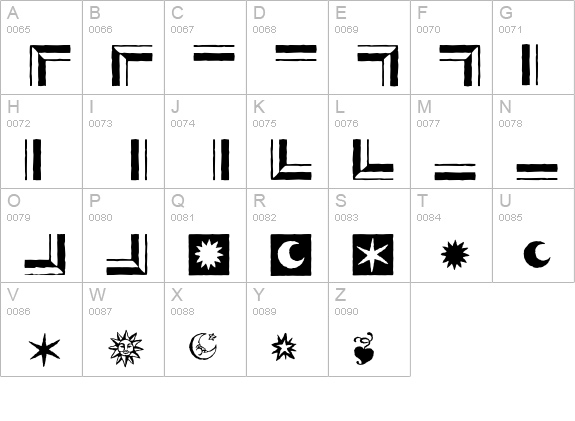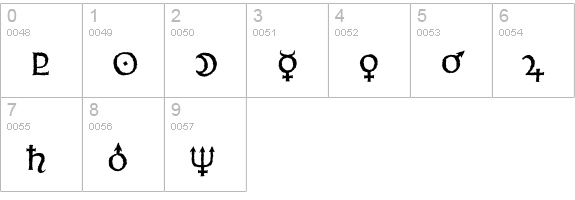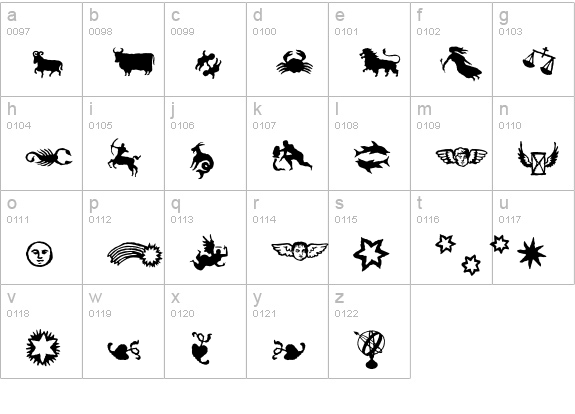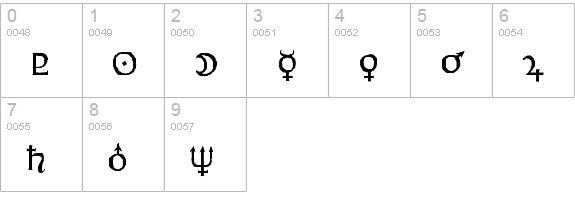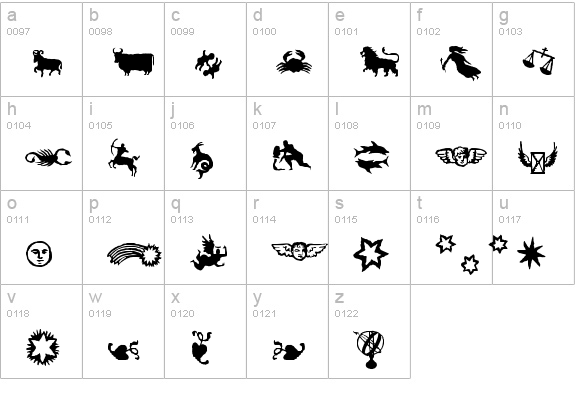
Celestia Antiqua Ornaments Font Details
Celestia Antiqua Ornaments font is a stunning collection of ornate and intricate decorative elements that will add a touch of elegance and sophistication to any design project. This font features a wide range of ornamental flourishes, frames, borders, and embellishments inspired by antique and vintage styles. Each glyph in Celestia Antiqua Ornaments font is meticulously crafted with attention to detail, making it perfect for creating timeless and luxurious designs. Whether you're working on invitations, branding, packaging, or any other creative project, this font will elevate your work with its regal and ornate aesthetic. The best part is that Celestia Antiqua Ornaments font is available for free download at FontsMarket.com. You can easily access this exquisite font and use it in your projects without any cost. So go ahead and add a touch of old-world charm and sophistication to your designs with Celestia Antiqua Ornaments font.